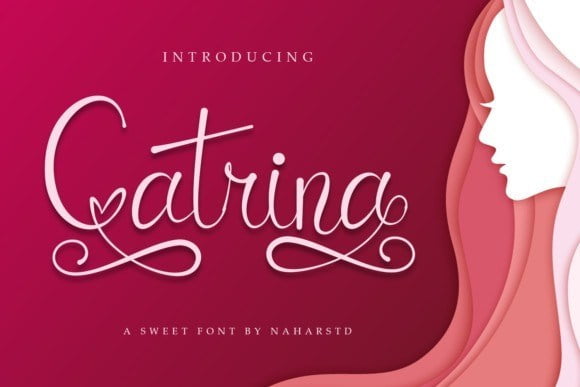
Catrina Font
Catrina Font is a flowing calligraphy font by Naharstd.
Gorgeous curves and optional initial and terminal swashes make this font perfect for invitations and other projects where you want a romantic yet classy vibe.